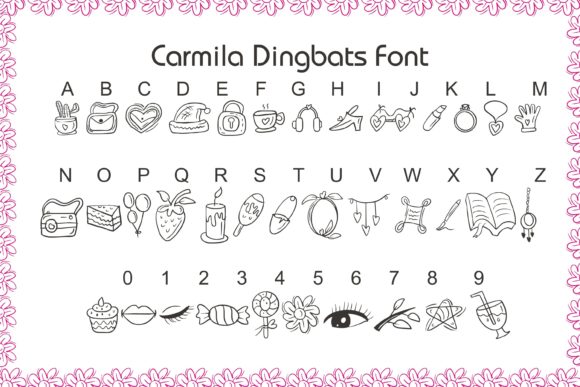
Carmila Dingbats Font: Elevate Your Designs with Creative and Useful Icons
Are you a designer, crafter, or DIY enthusiast looking for a unique and versatile font to take your projects to the next level? Look no further than Carmila Dingbats Font! This cool and creative dingbats font is an incredible asset to any font library, offering a wide range of uses and applications across various topics and themes.
What are Dingbats Fonts?
For those who may be new to dingbats fonts, let’s start with the basics. Dingbats fonts, also known as symbol fonts or icon fonts, are a type of font that features graphical symbols, icons, and ornaments instead of traditional letters and numbers. These fonts are perfect for adding visual interest, personality, and flair to your designs, making them ideal for a variety of projects, such as crafts, DIY tutorials, social media graphics, and more.
Introducing Carmila Dingbats Font
Carmila Dingbats Font is a standout dingbats font that offers a vast collection of creative and useful icons, carefully designed to help you elevate your designs. With its extensive range of symbols, ornaments, and graphics, this font is perfect for designers, crafters, and DIY enthusiasts who want to add a personal touch to their projects.
Key Features of Carmila Dingbats Font
- Unique and Creative Icons: Carmila Dingbats Font features a wide range of unique and creative icons, including shapes, symbols, ornaments, and more.
- High-Quality Design: Each icon is carefully designed to ensure high-quality and crisp visuals, perfect for printing or digital use.
- Versatile and Adaptable: This font is versatile and adaptable, making it suitable for various projects, from crafts and DIY tutorials to social media graphics and more.
- Easily Customizable: With Carmila Dingbats Font, you can easily customize your designs by changing the font size, color, and style to fit your project’s needs.
Uses and Applications of Carmila Dingbats Font
Carmila Dingbats Font is an incredibly useful font that can be applied to various projects and themes, including:
- Crafts and DIY Tutorials: Add a personal touch to your craft and DIY tutorials with custom icons and graphics.
- Social Media Graphics: Elevate your social media graphics with unique and creative icons, perfect for Instagram, Facebook, Twitter, and more.
- Blog and Website Design: Use Carmila Dingbats Font to add visual interest and personality to your blog or website design.
- Stationery and Invitations: Create custom stationery, invitations, and greeting cards with beautiful and creative icons.
Tips and Tricks for Using Carmila Dingbats Font
To get the most out of Carmila Dingbats Font, here are some tips and tricks to keep in mind:
- Experiment with Font Sizes and Colors: Play around with different font sizes and colors to create visually appealing designs.
- Combine with Other Fonts: Pair Carmila Dingbats Font with other fonts to create unique and interesting typography.
- Use for Branding and Identity: Utilize Carmila Dingbats Font to create custom branding and identity elements, such as logos, icons, and more.
| Font Name | Carmila Dingbats Font |
| Author | edywiyonopp |
In conclusion, Carmila Dingbats Font is an incredible asset to any font library, offering a wide range of creative and useful icons to elevate your designs. With its unique and high-quality design, versatility, and adaptability, this font is perfect for designers, crafters, and DIY enthusiasts who want to add a personal touch to their projects. So why wait? Get creative with Carmila Dingbats Font today and take your designs to the next level!